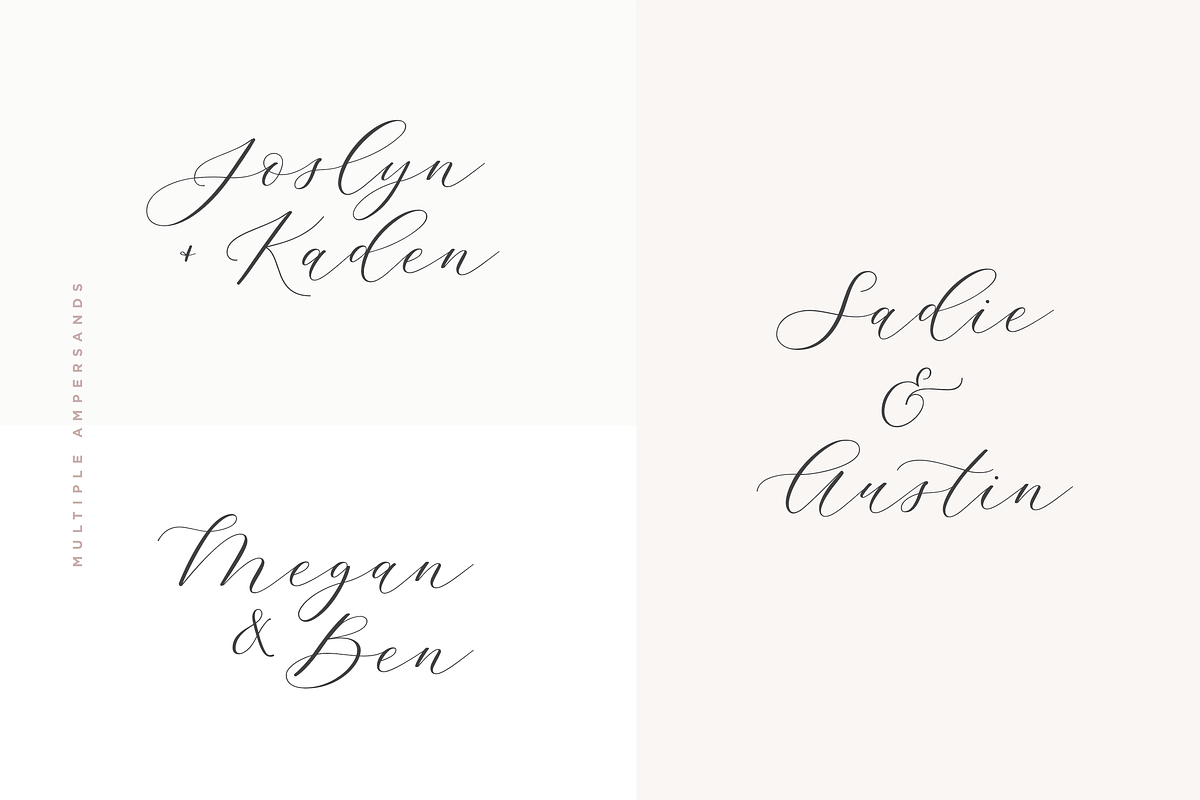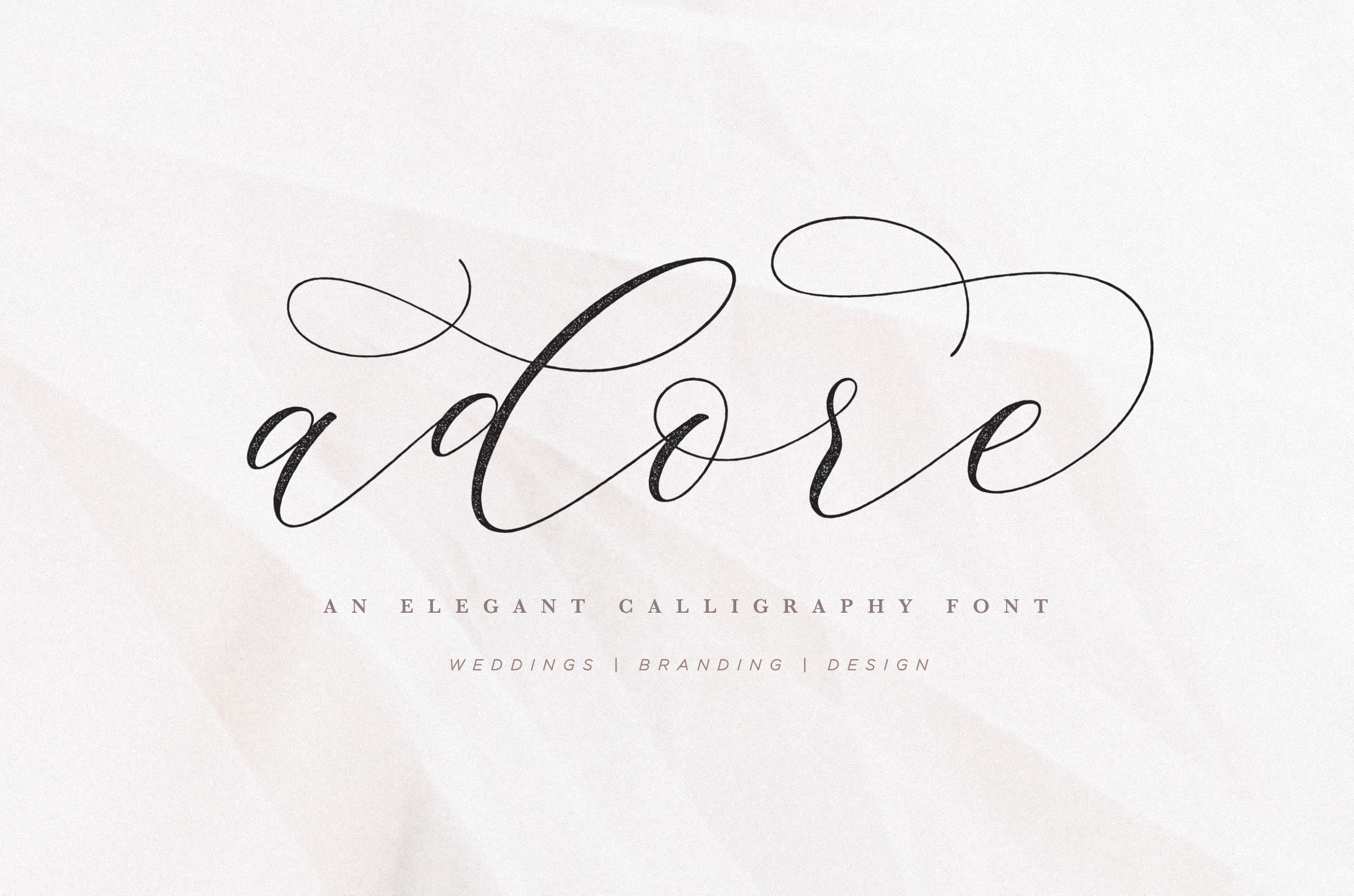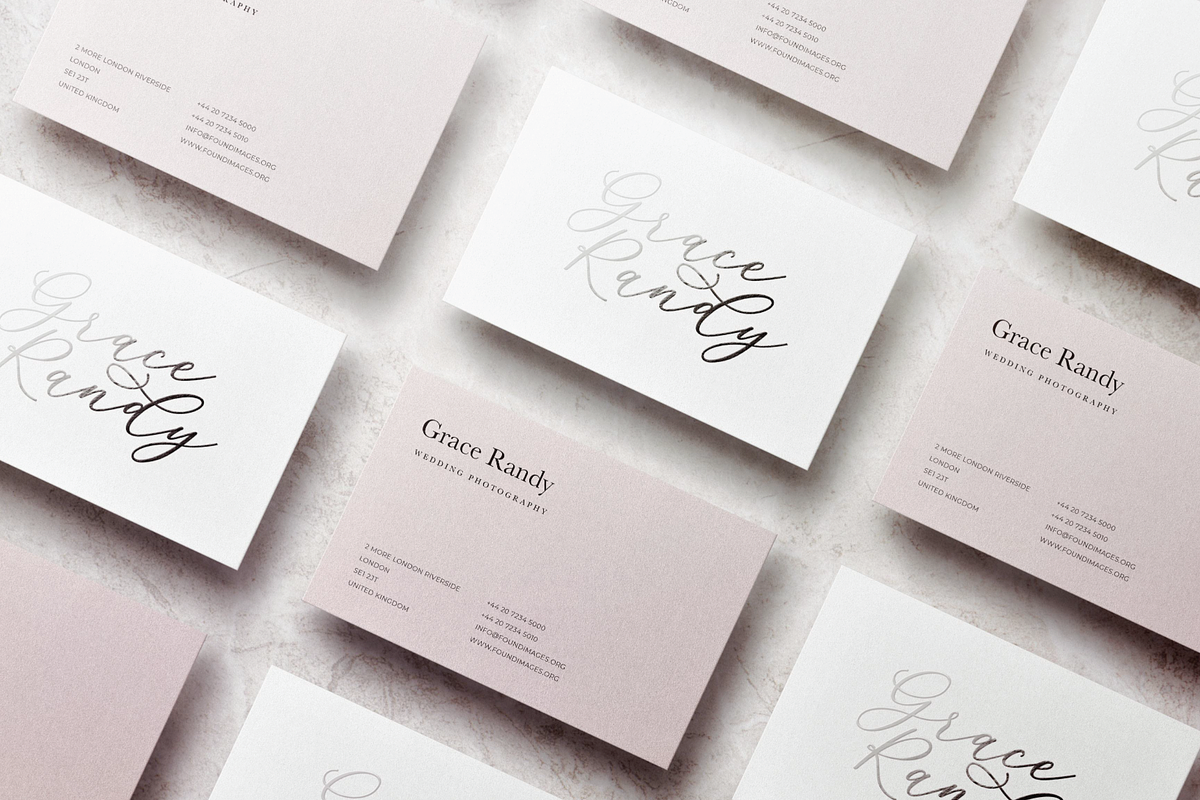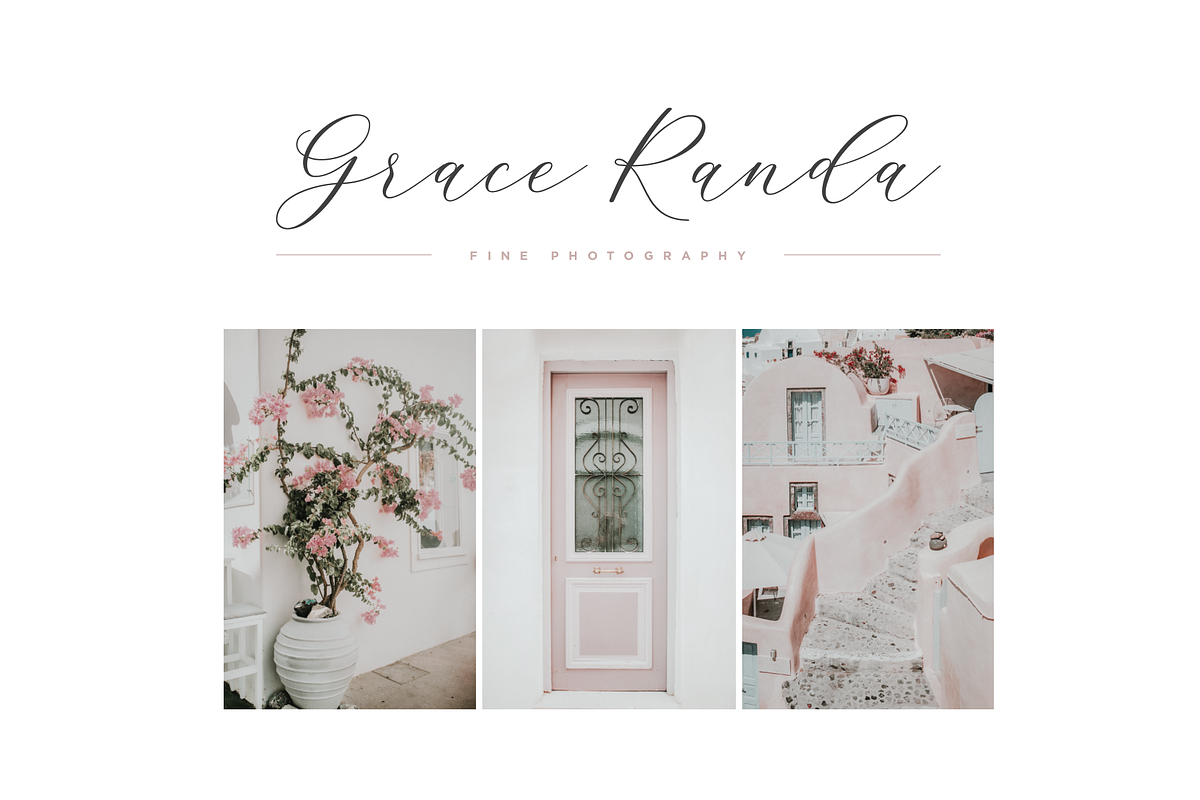
Adore Calligraphy Font
Introducing the elegant new Adore Calligraphy Font! For those of you who are needing a touch of elegance and modernity for your designs, this font was created for you!
Adore was built with OpenType features and includes beginning and ending swashes, alternate swash characters for most lowercase letters, numbers, punctuation, alternates, ligatures and it also supports other languages :)